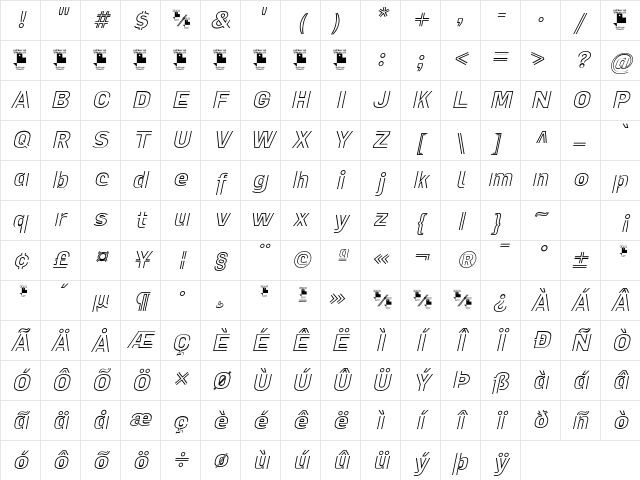
La Pejina Italic FFP Italic
Foundry: deFharo
Designer: deFharo
Complete La Pejina Italic FFP Italic glyph index. Displaying only characters natively supported by La Pejina Italic FFP Italic font.
Design Context for La Pejina Italic FFP
La Pejina Italic FFP is a composed and adaptable typeface that performs quietly and consistently across a wide range of design contexts. The slanted form adds forward momentum and visual energy.
Pro Tip: Use La Pejina Italic FFP for emphasis, pull quotes, and subheadings where its slanted energy can add rhythm to the layout.
Who designed the La Pejina Italic FFP Italic font?